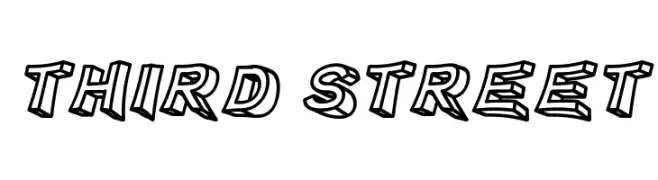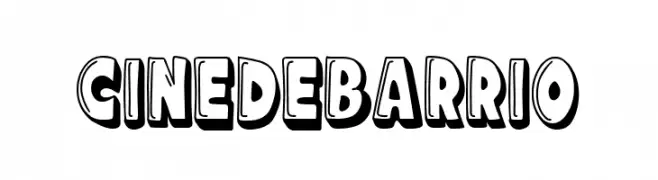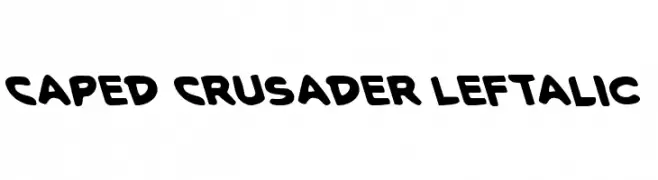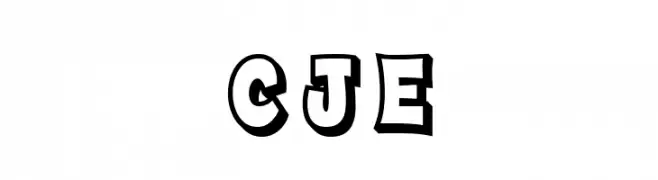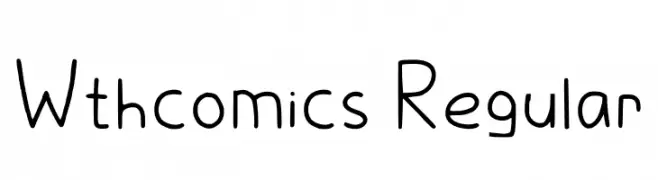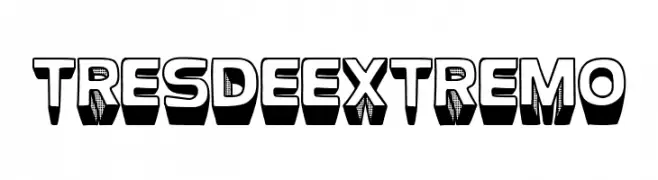
A bold, three-dimensional font with a playful, comic book style.
A bold, playful font with a 3D comic book style.
A playful, handwritten font with a bold, rounded style and slight slant.
A playful, rounded font with a whimsical and informal style.
A bold, playful font with a leftward slant, perfect for dynamic and fun designs.
Playful and bold cartoon-style font.
Bold, playful font with 3D extruded effect.
Playful handwritten font with rounded edges.
Bold, playful display font with irregular, cartoon-like shapes.
Bold 3D display font with comic-style shading and strong outlines.